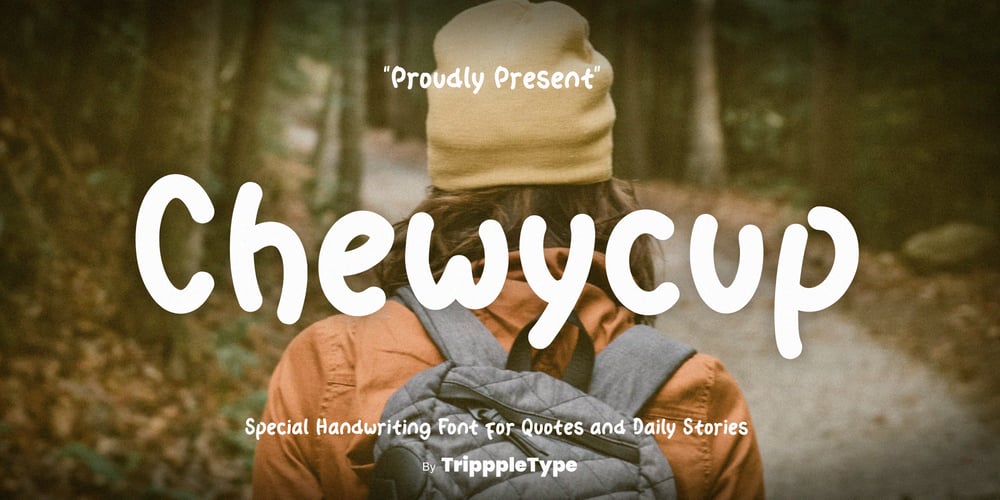
Chewycup Handwritten Font Family was designed by Kang Nur and published by TripppleType. Chewycup Handwritten contains 1 styles and family package options. Meet Chewycup, a delightful handwritten font that’s all about adding a fun and bubbly personality to your posts and videos. Perfect for vibrant daily stories or music lyric videos, Chewycup has a playful, friendly tone that invites your audience to engage. It’s like a cozy conversation between friends, wrapped in every curve of the letters.Add that extra pop to your visuals with Chewycup! Download now and let this charming font bring out the fun in all your content, whether you’re crafting story posts, catchy captions, or quirky videos.